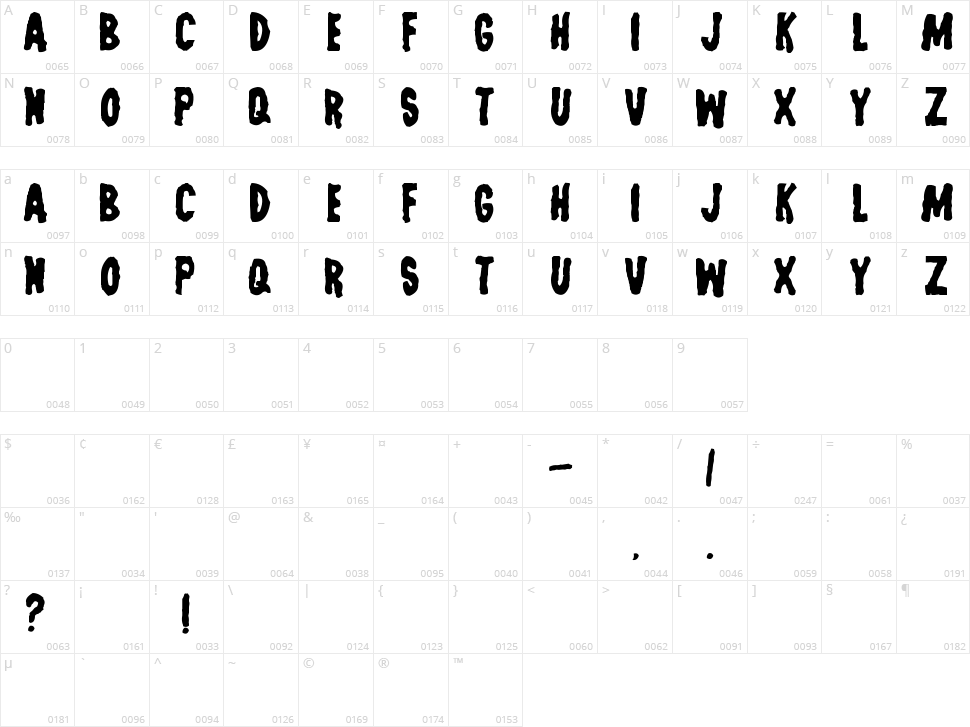
Last Man on Earth
Last Man on Earth:
A font based on the movie Last Man on Earth,
Originally "I am Legend " by Richard Matheson
remade as "The Omega Man"
Designer Name: Dreadful Productions